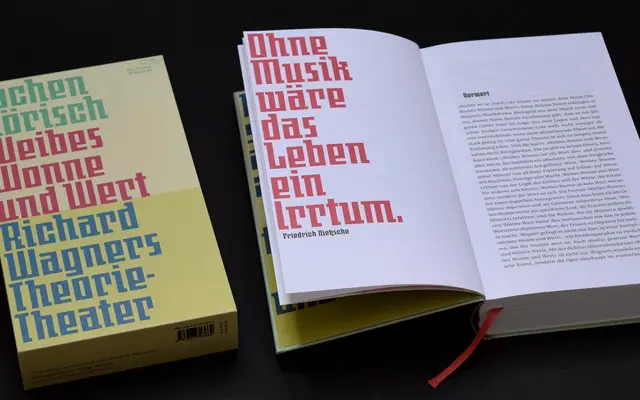
JAF Johannes
Just Another Foundry · Shoko Mugikura & Tim Ahrens · 2014
A digitisation and extension of Johannes Schulz's 1930s Johannes-Type, split into a faithful revival and a version with redrawn contemporary letterforms.
Originally designed for the Genzsch & Heyse foundry in Hamburg, the source material has an unusual geometric-industrial quality that reads as 'Techno meets Blackletter' despite predating the aesthetic by decades. Shoko Mugikura and Tim Ahrens offer two sub-families: JAF Johannes Original stays close to Schulz's drawings, while JAF Johannes reworks select letters into more contemporary shapes. Each sub-family ships in two styles.
A digitisation of a 1930s blackletter typeface by Johannes Schulz, described as 'Techno meets Blackletter', placing it firmly in the blackletter category with an unusual geometric-industrial quality.